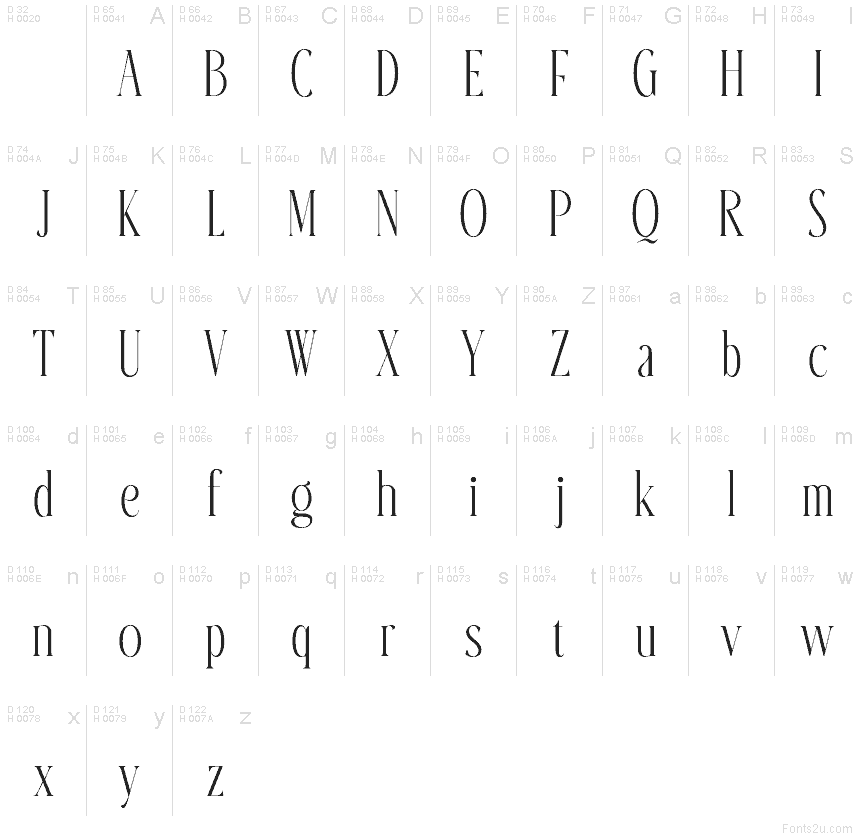
Baige Regular Demo
Baige font by Craft Supply is an elegant light serif font that combines a classic influence with a modern touch. The font expresses sophistication in abundance and it uses mainly vertical lines together with subtle curvature to produce excellent readability.
Use Baige for professional visuals that require some abstract dominance. With free personal and commercial use, the font is perfectly fitting for branding, posters, packaging designs, books covers, magazines layouts, and so on. Other possible uses include advertising items, digital screens displays such as mobile or website applications interface typography content.